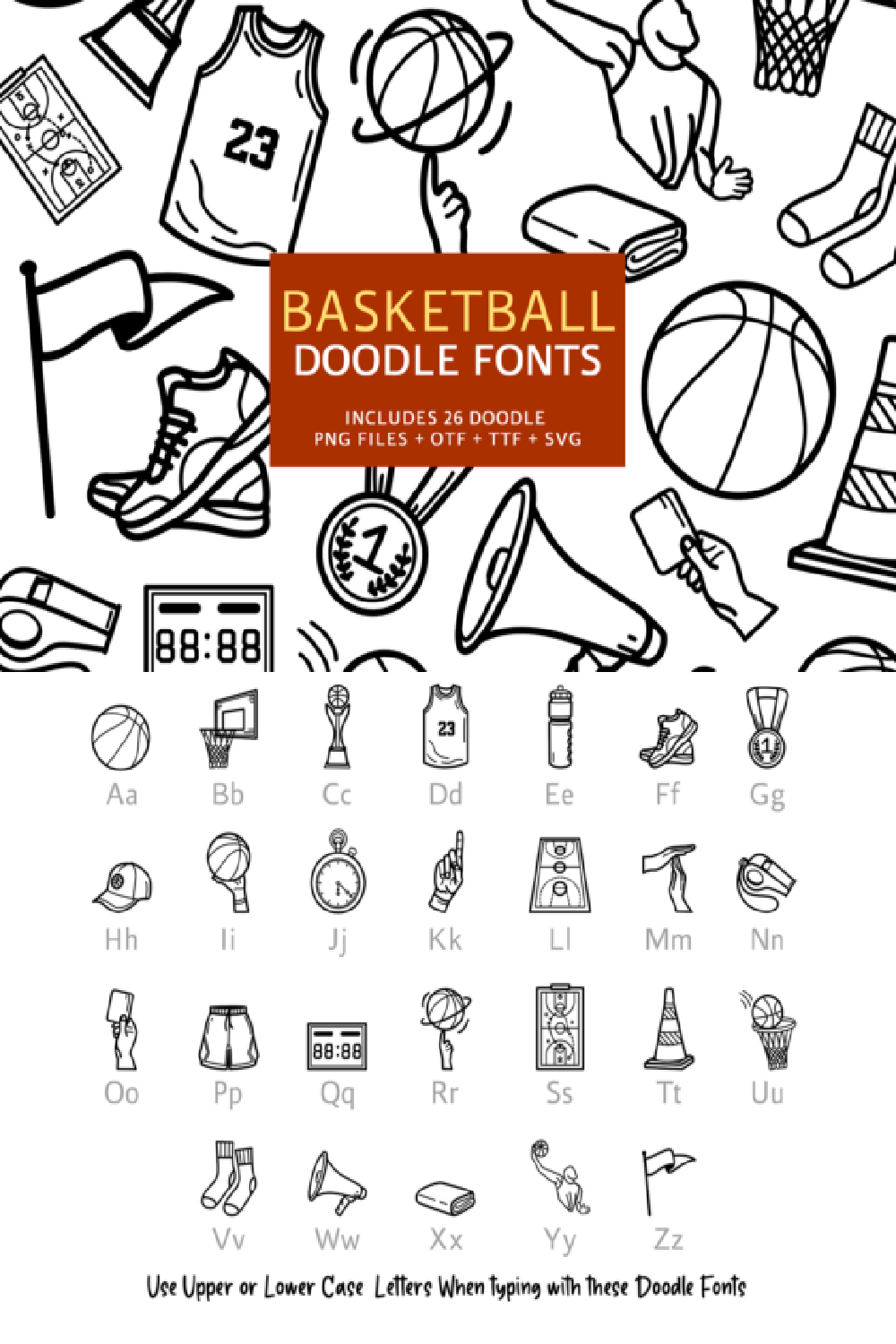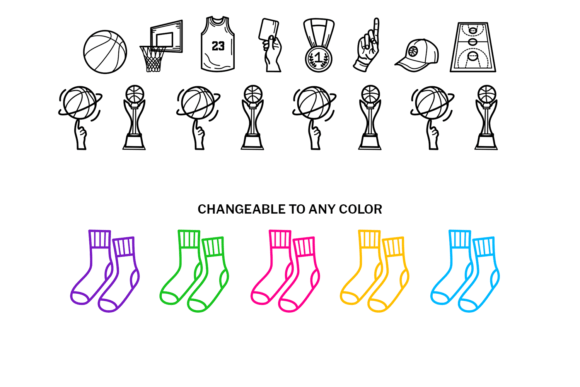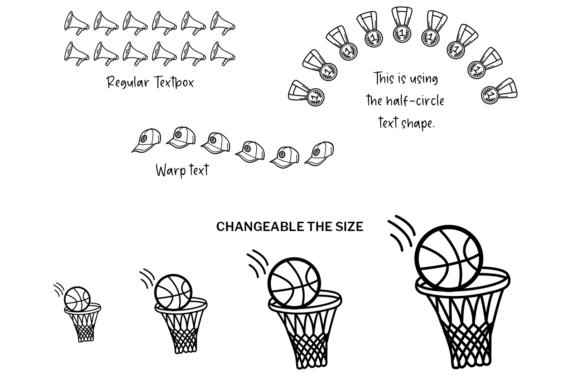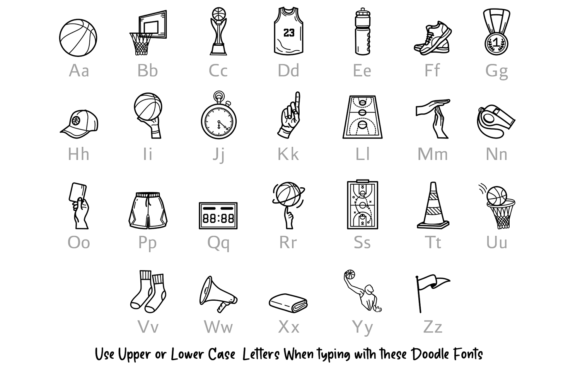
Basketball Doodle Font
About the Basketball Doodle Font
Introducing the Basketball Doodle Font, a beautifully crafted typeface designed to elevate your creative projects. Basketball Doodle is a charming dingbats font featuring playful illustrations, perfect for creating eye-catching designs with a touch of cuteness. Ideal for children’s books, greeting cards, and social media posts.